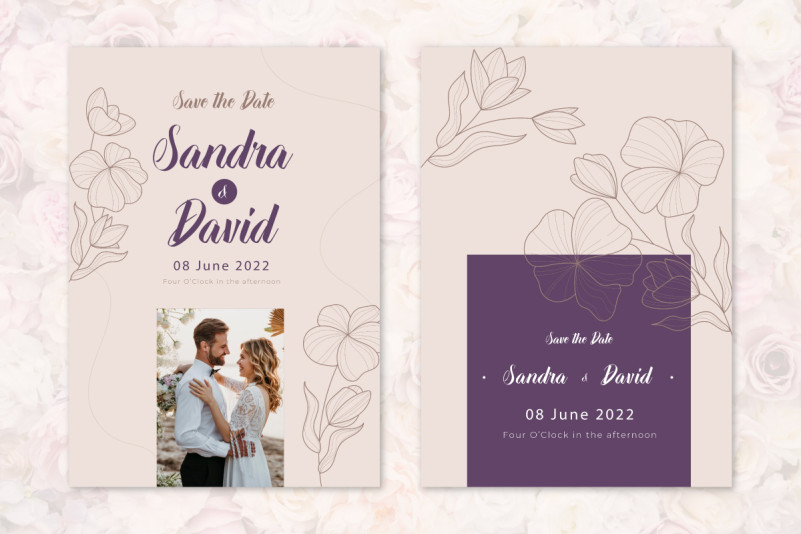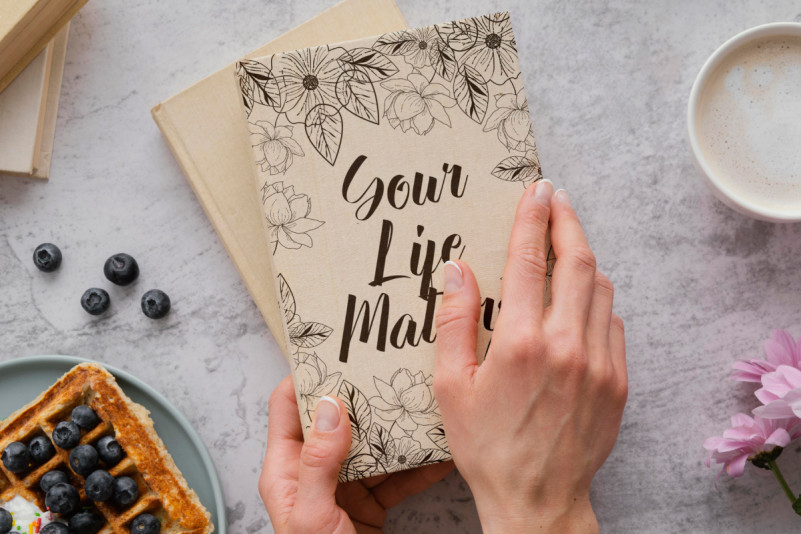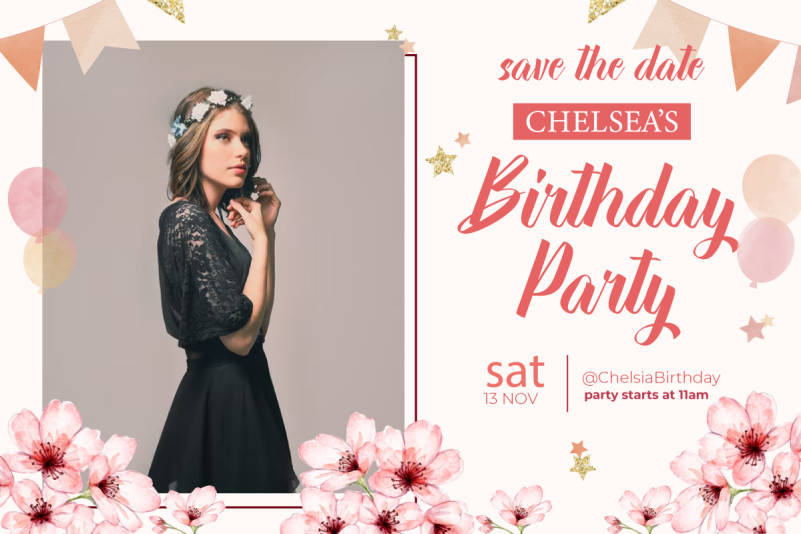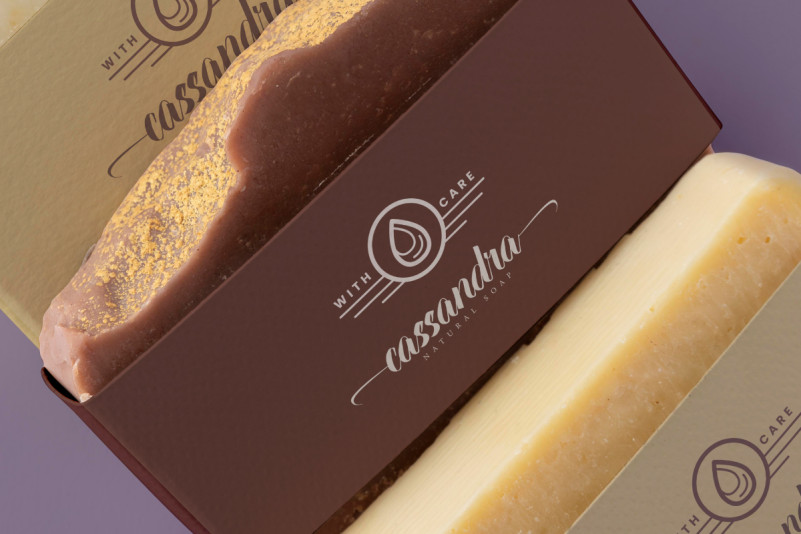
Darling Princess
Darling Princess Calligraphy Font is a lovely script font in a modern calligraphy style. It has a clean and easy to read that will add to the beauty of your designs, such as brand logo, brochure, business card, cover, invitation, label, product packaging, quote, sticker, title, watermark, website, and much more!